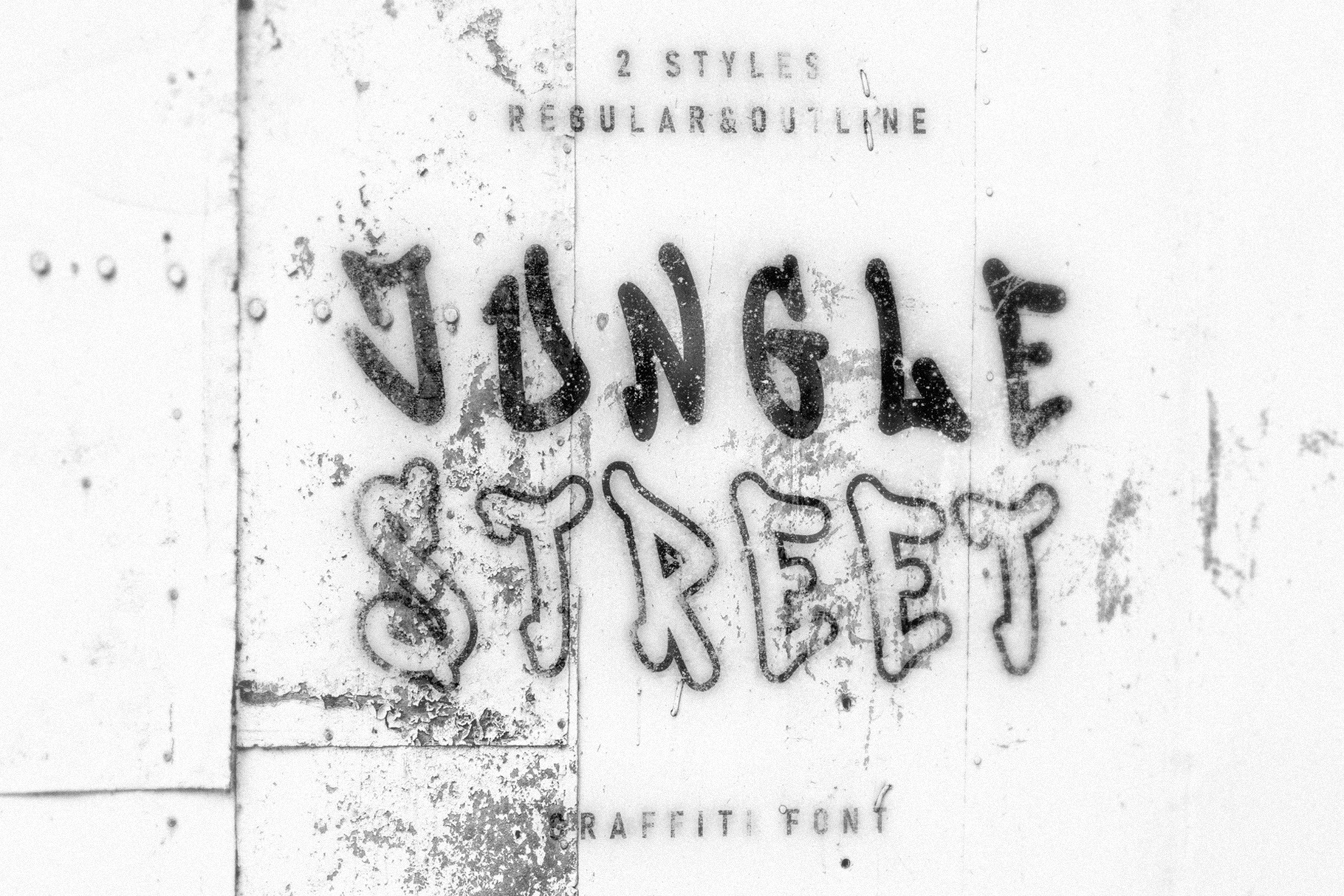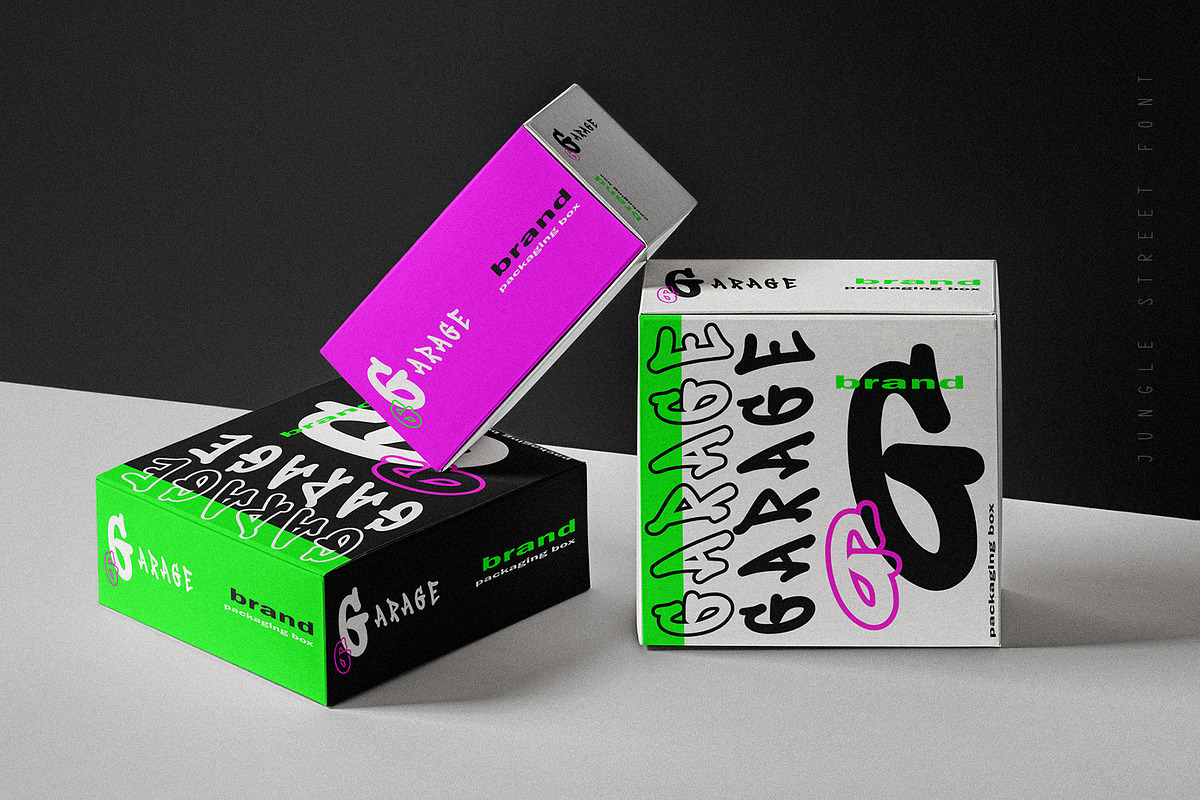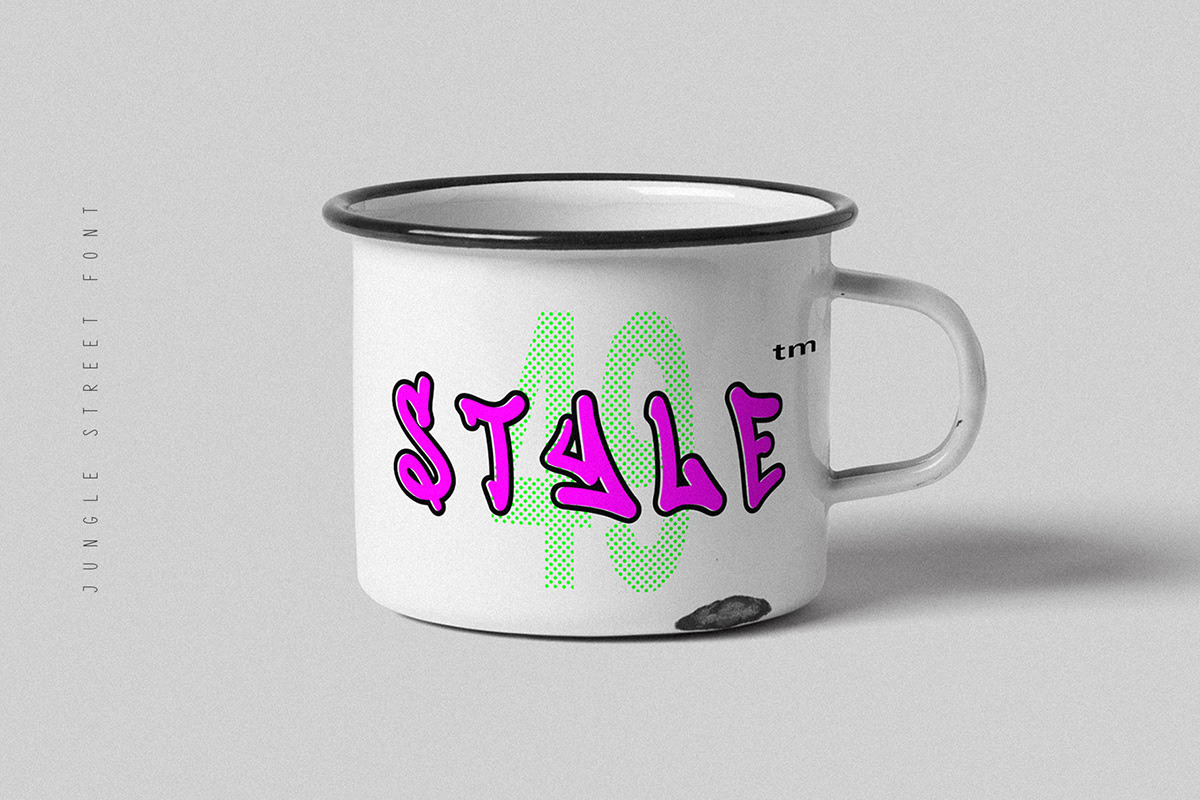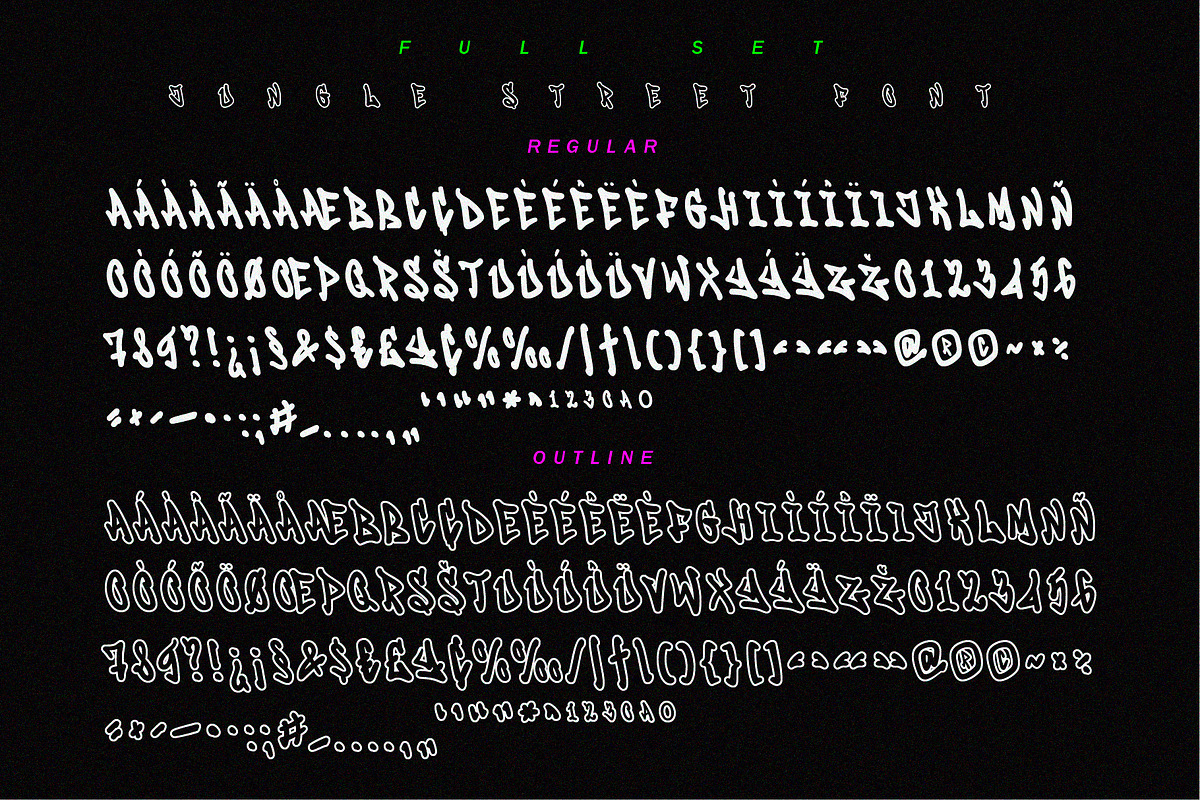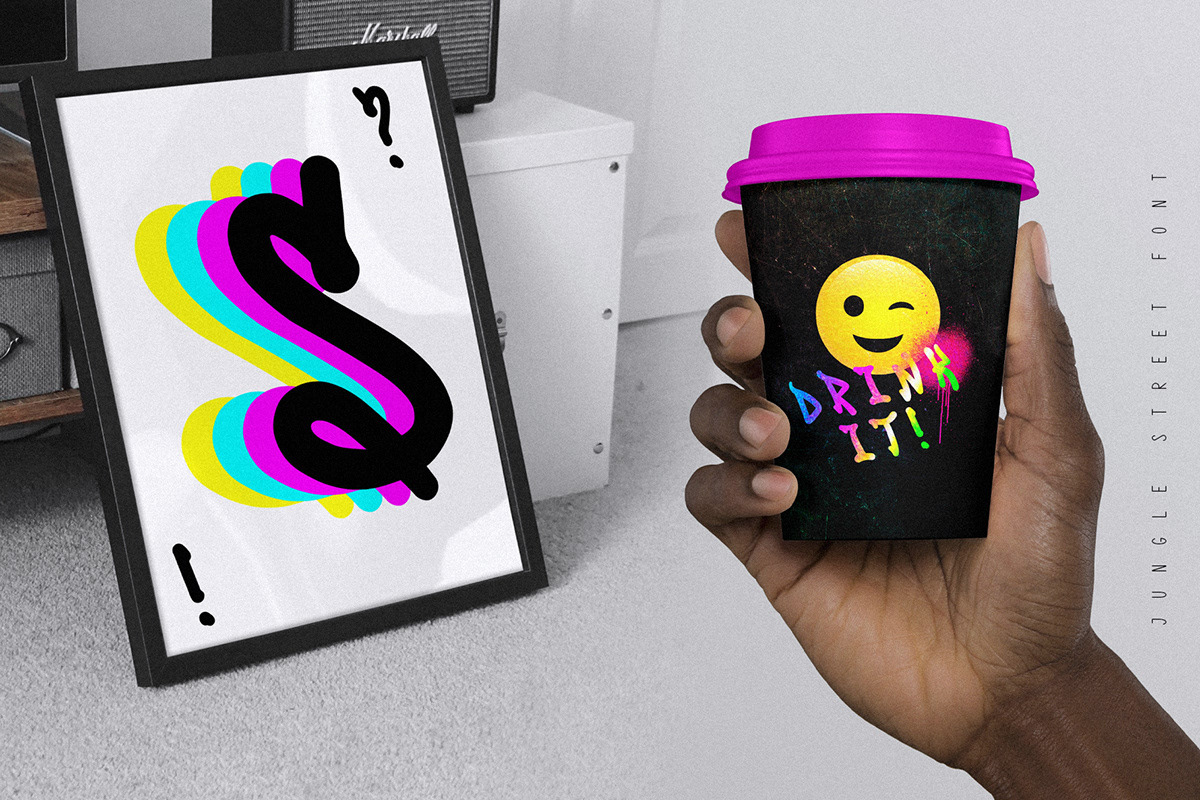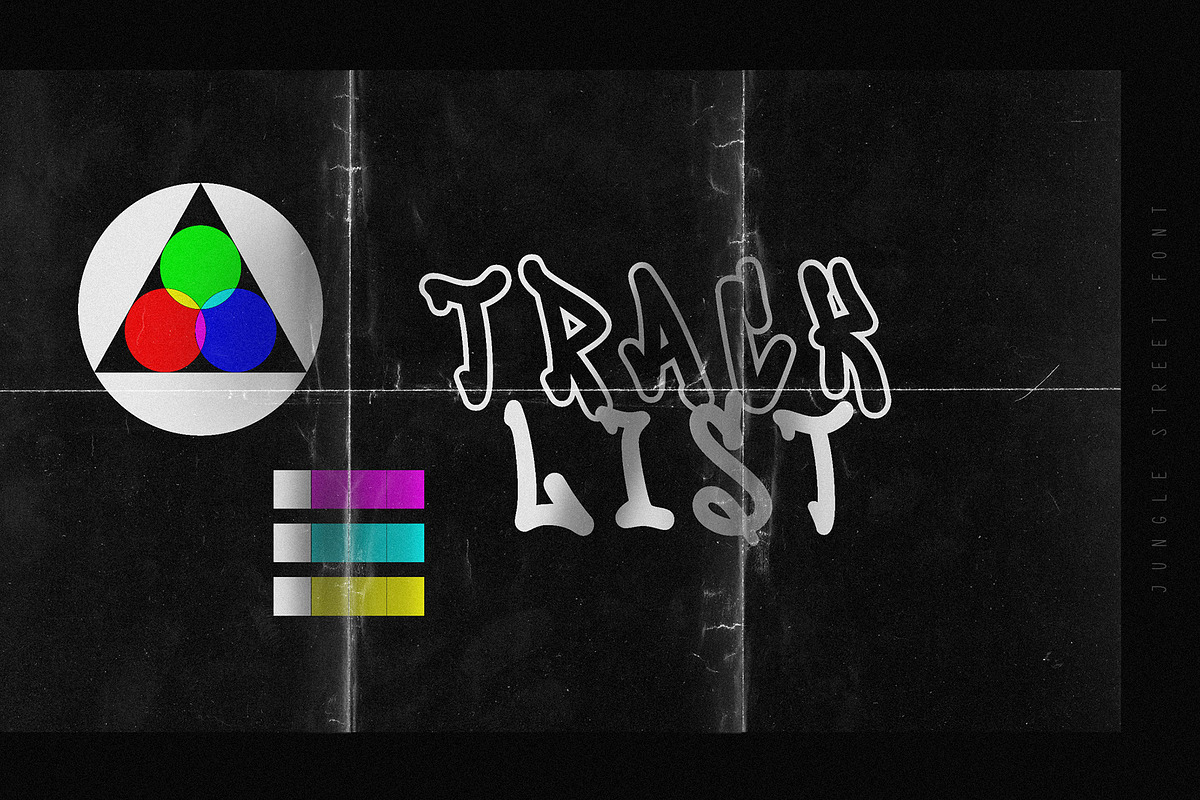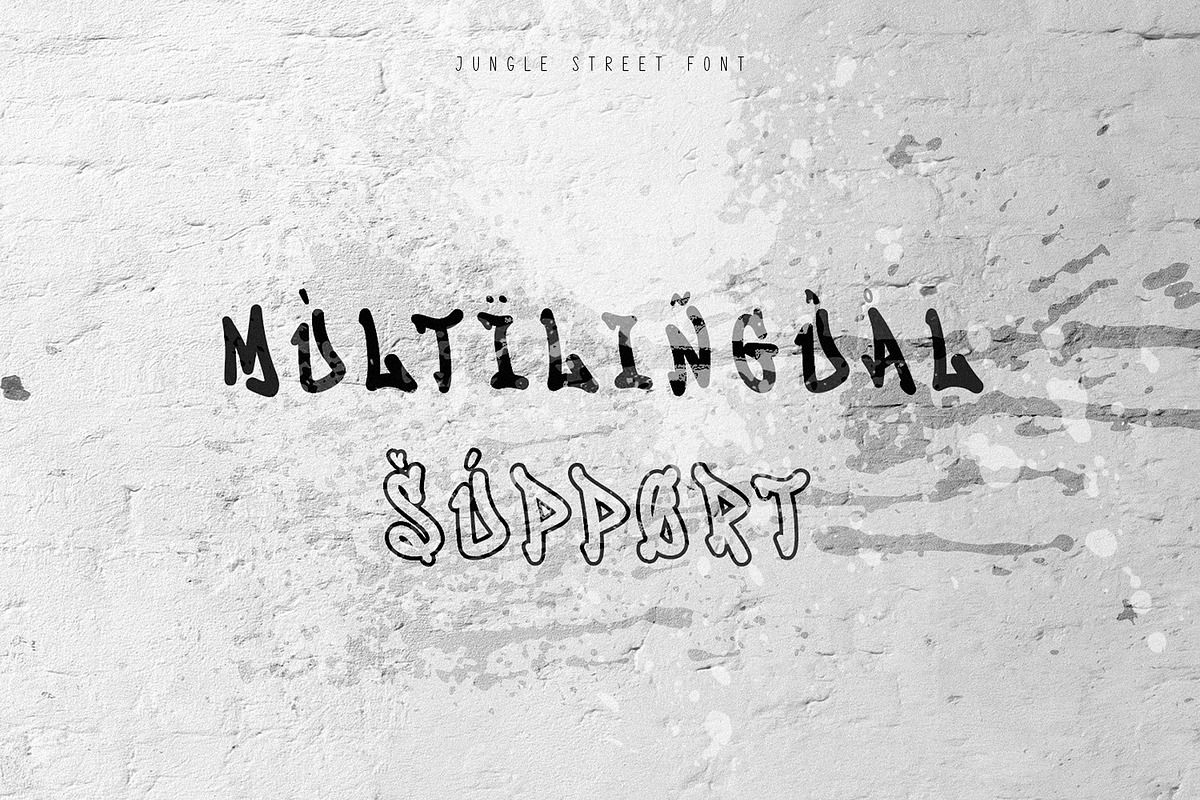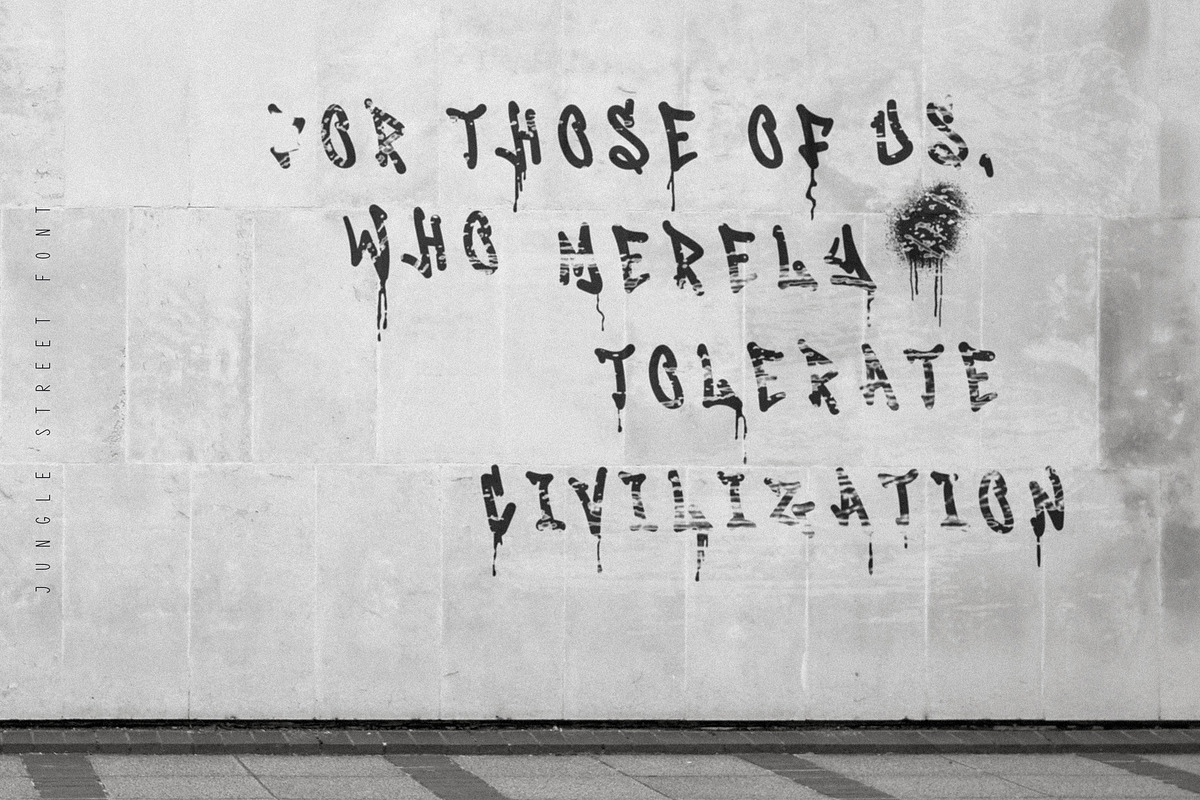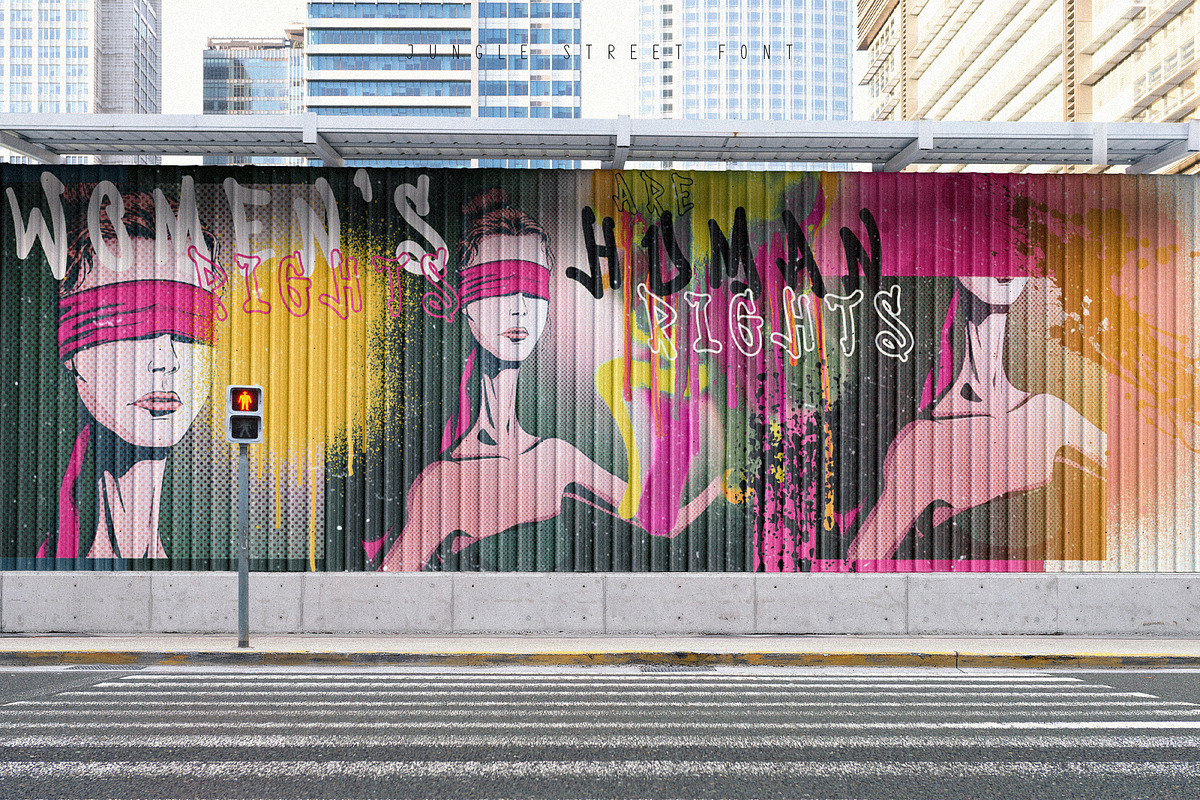
Jungle Street Font
Jungle Street is an uppercase decorative font inspired by street art tag in big city wall. It's works perfectly for headlines, logos, posters, packaging, T-shirts, postcards and many more. Latin-based Language Support.
- Character set A-Z